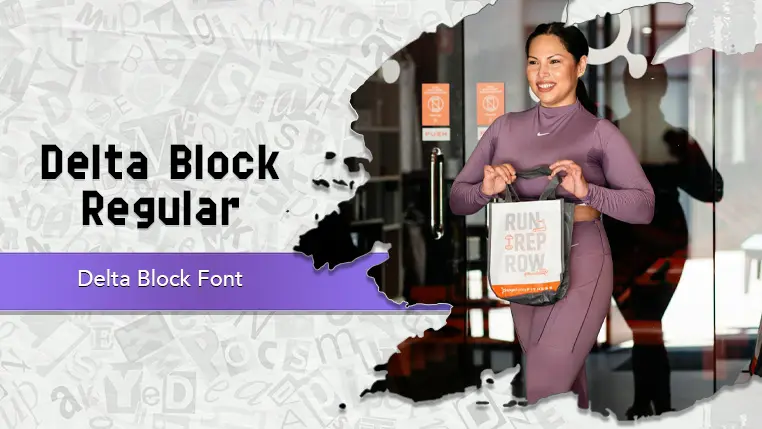
The Delta Block font family may be ideal for you if you enjoy working on an artistic design project. The lively, expressive look of this typeface, which was created by GGBotNet, makes it ideal for Sports and Athletics Branding. Excellent for posters, flyers, advertisements, magazine covers, and any design where a strong, attention-grabbing headline is crucial. Suitable for designs related to action films, extreme sports, or any theme requiring a sense of power and intensity. Ideal for t-shirts, hoodies, and other clothing items where a strong, graphic font is desired. and other light-hearted visual projects.
Regular, Italic are the two primary font styles of the Delta Block font family. You may build dynamic, visually appealing text layouts with the distinct flair that each style offers. With crisp, readable lines and a relaxed tone.